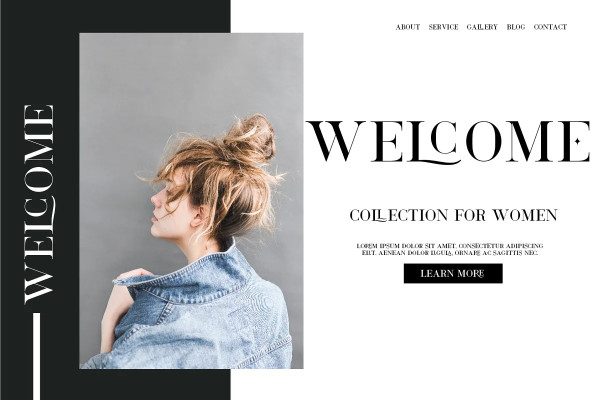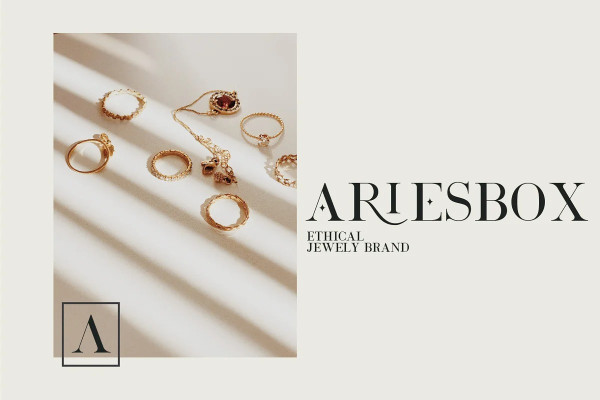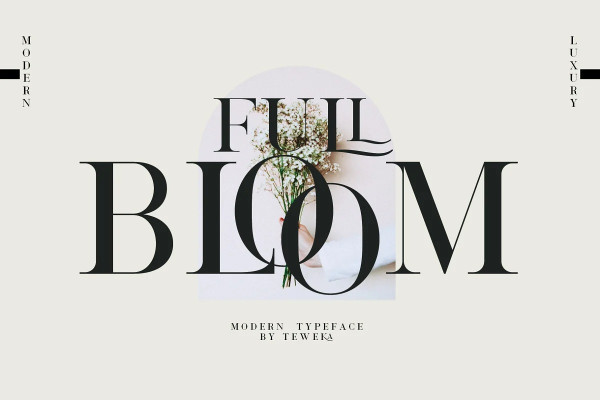
Full Bloom Font
Full Bloom Font is a bold and genuine serif font. No matter the topic, this font will be an incredibly asset to your fonts’ library, as it has the potential to elevate any creation.